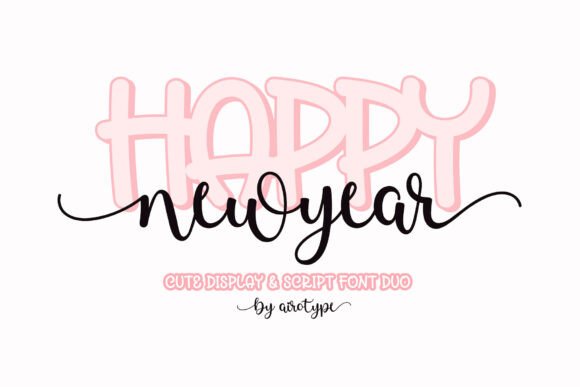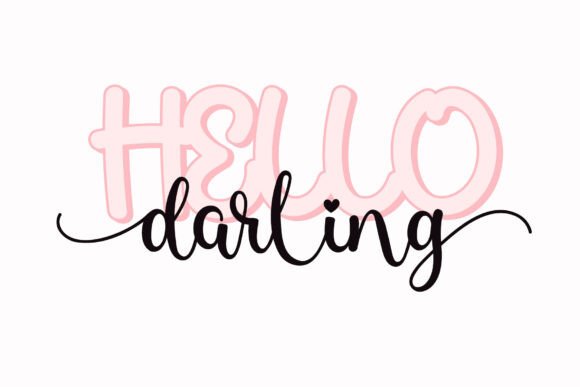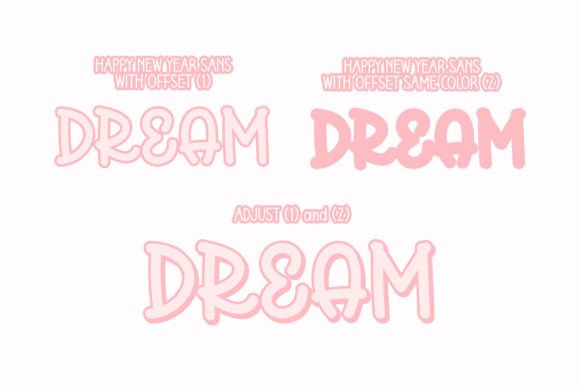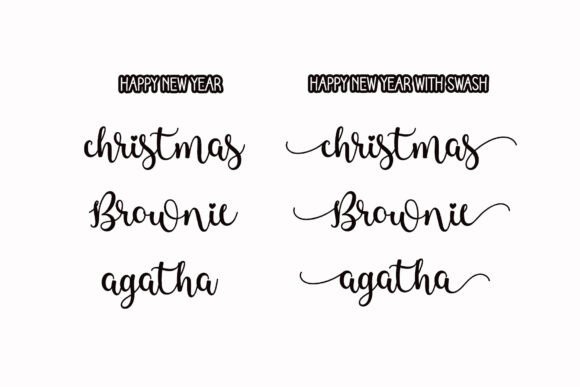
Happy New Year Font
About the Happy New Year Font
From logos to headlines, the Happy New Year Font is the perfect choice for making a lasting impression. Happy New Year is a handwritten font duo with cheerful and festive vibes. You can use the fonts together or separately for various designs.
The duo includes a playful calligraphy script with swashes and a cute display font. It’s perfect for fun, playful themes like kids’ projects, school designs, holiday or birthday invitations, summer, Christmas, New Year designs, t-shirts, crafting, stickers, sublimation, and much more.
This font duo excels in projects requiring a lighthearted and approachable aesthetic. Ideal applications include short headlines, logos for children’s brands, greeting cards, and social media graphics. Its playful nature makes it unsuitable for large blocks of body text or applications demanding high readability, such as websites or user interfaces.
The overall personality is best described as cheerful and friendly, conveying a sense of fun and festivity without being overly childish.
Happy New Year Font Usage Examples
Happy New Year Font Example